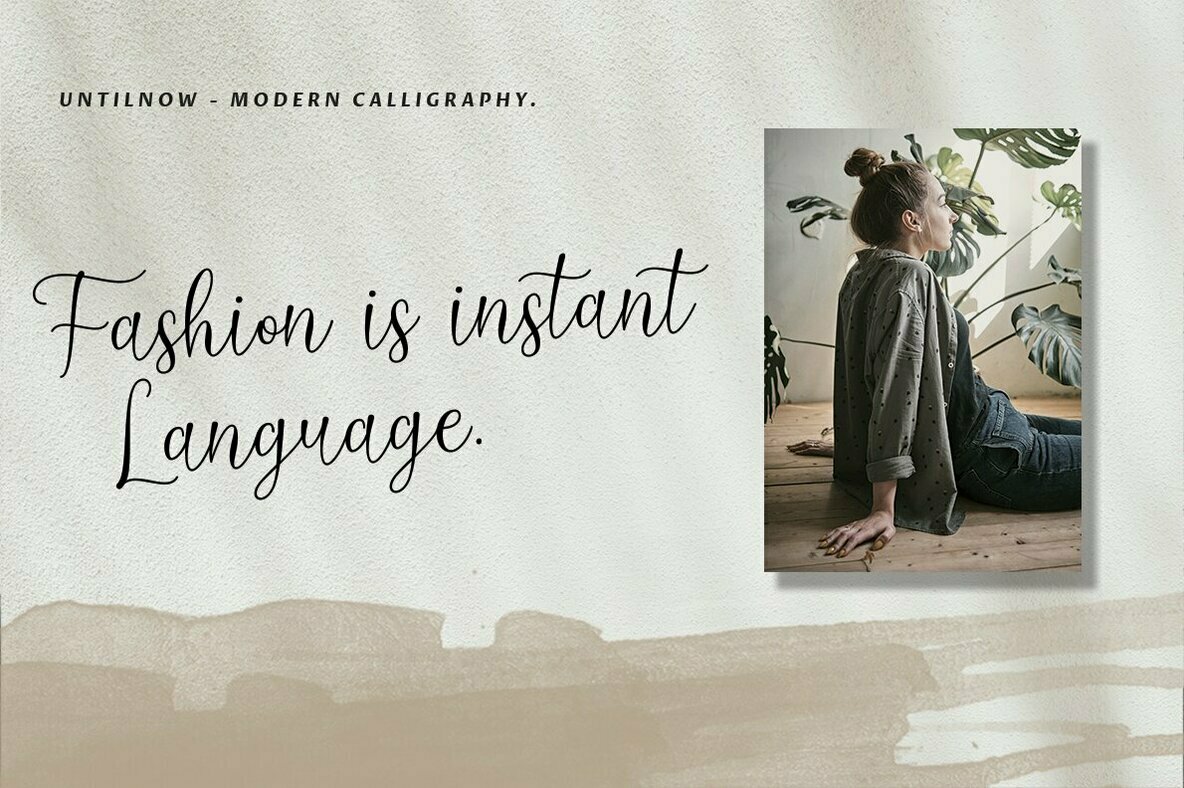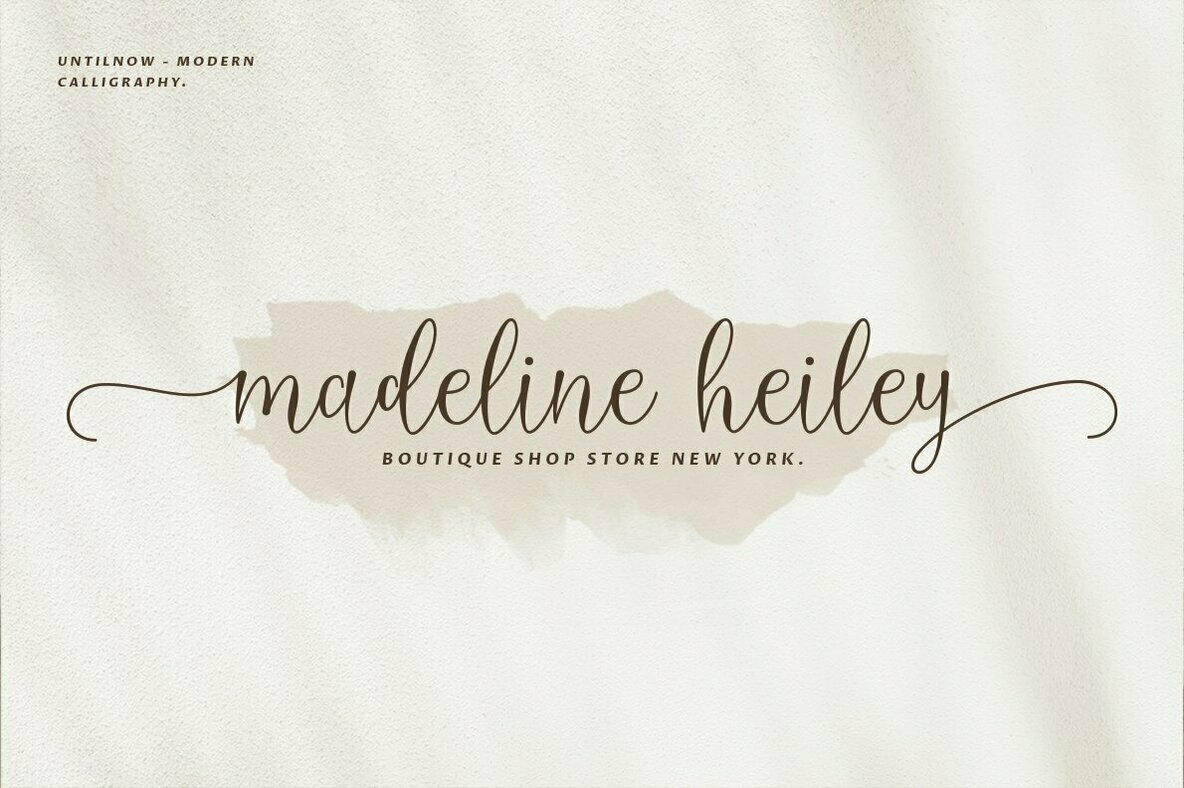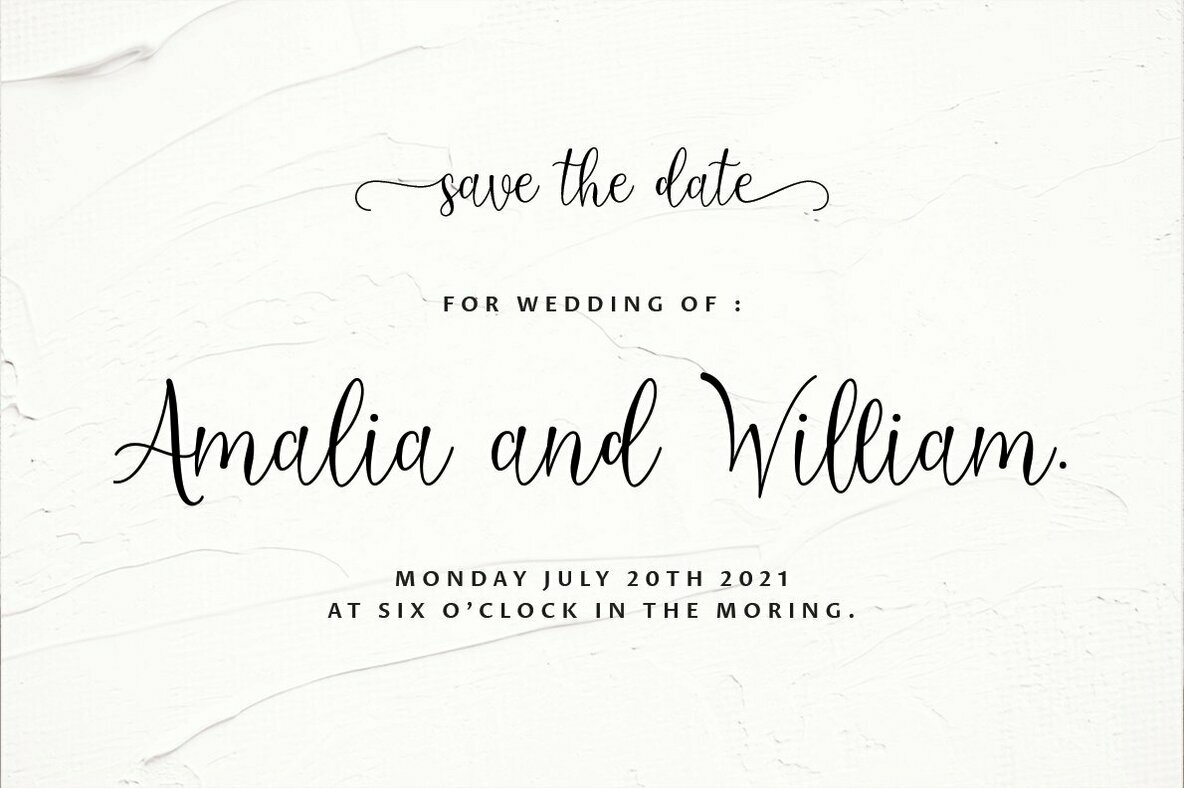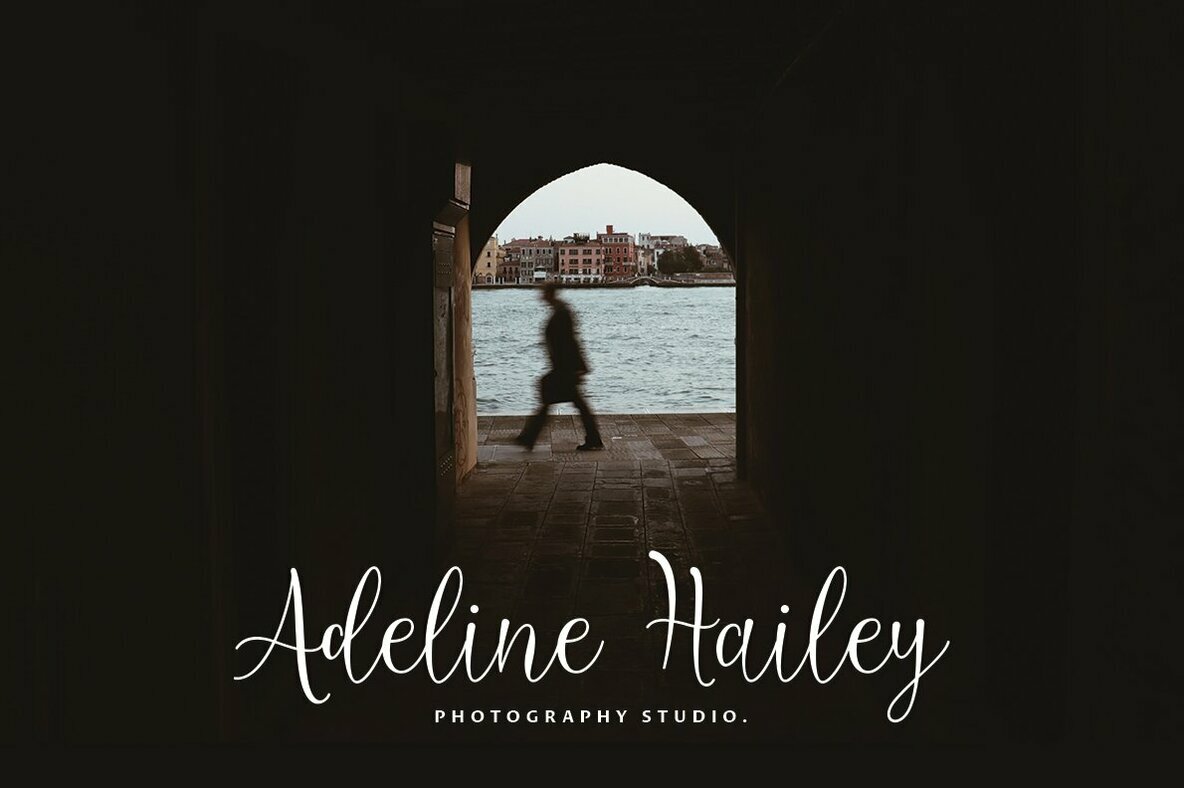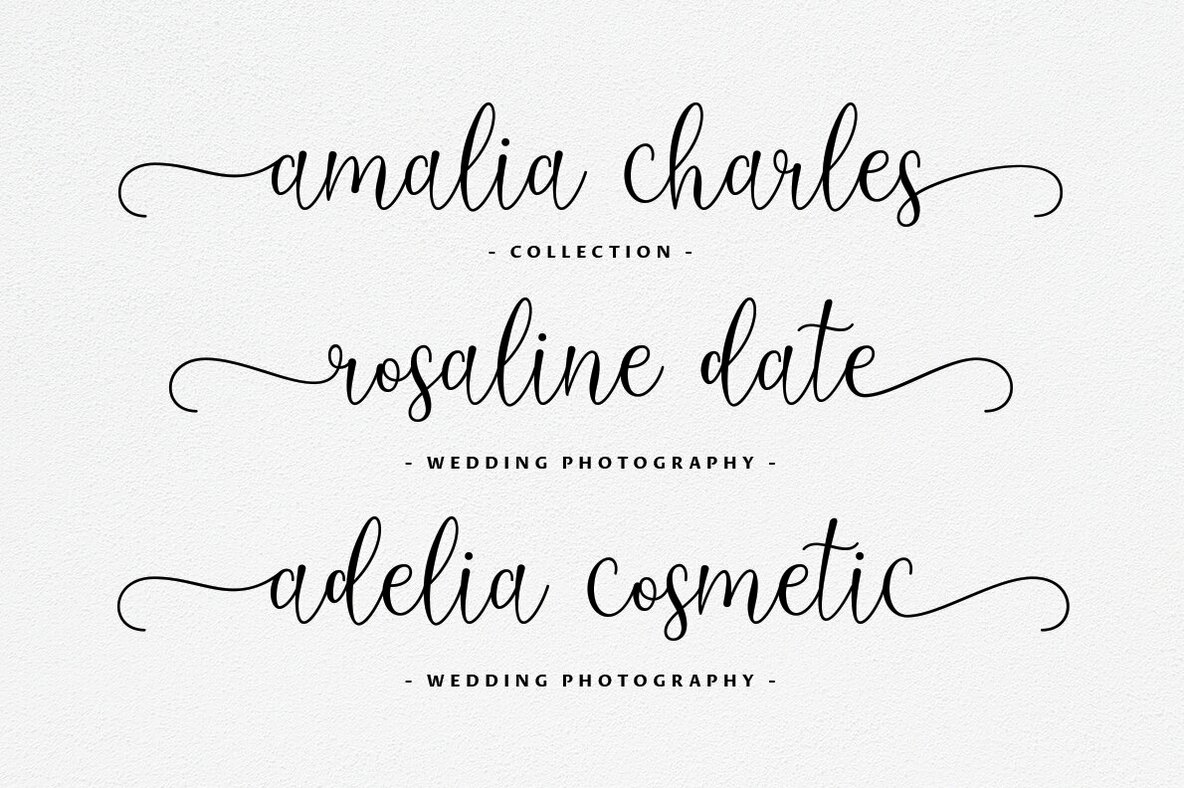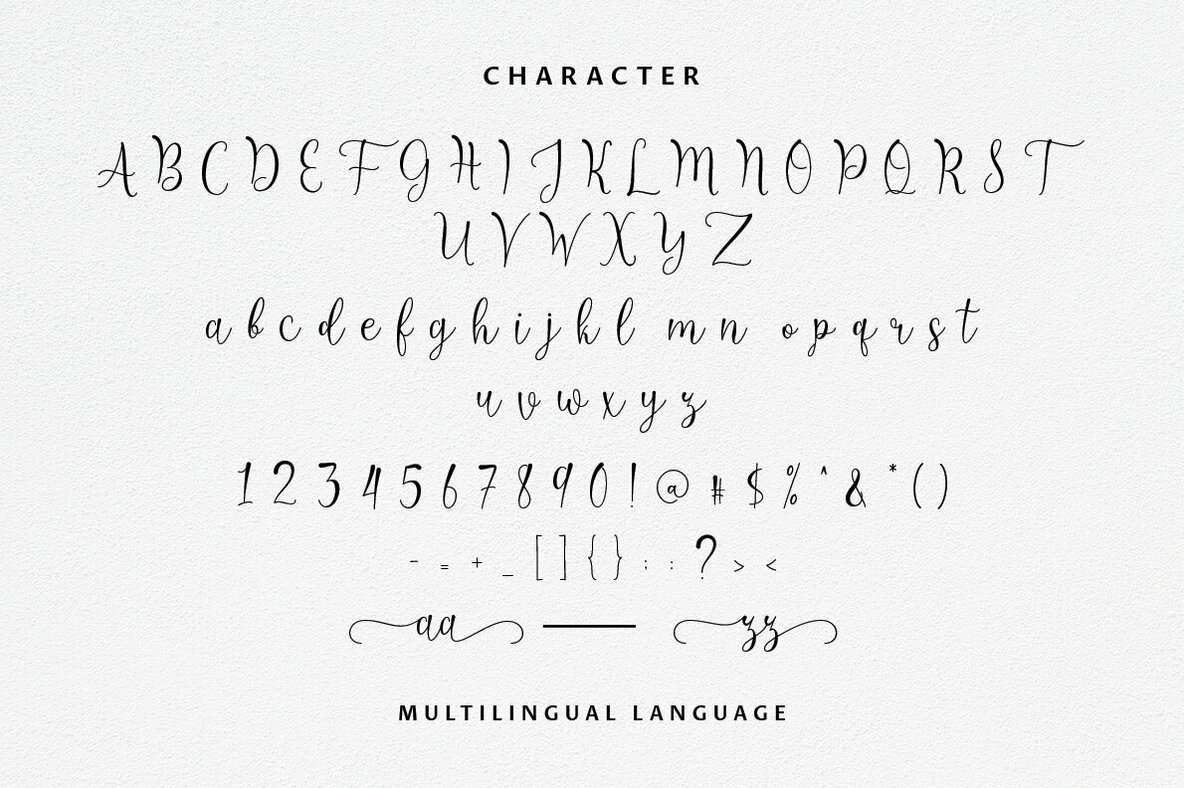
Untilnow Script Font
Untilnow Script
The Untilnow Script is a testament to sophistication, crafted to bring a sense of finesse and charm to any project. Its slender, feminine design is imbued with a friendly flair, making it an excellent choice for fashion, e-commerce brands, trend blogs, or any business that aspires to exude a classy and chic image.Untilnow Script: Slender Elegance and Style